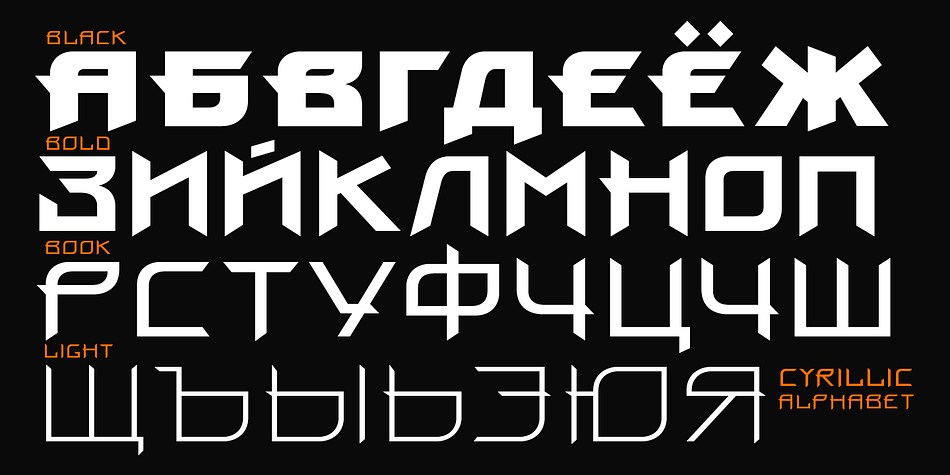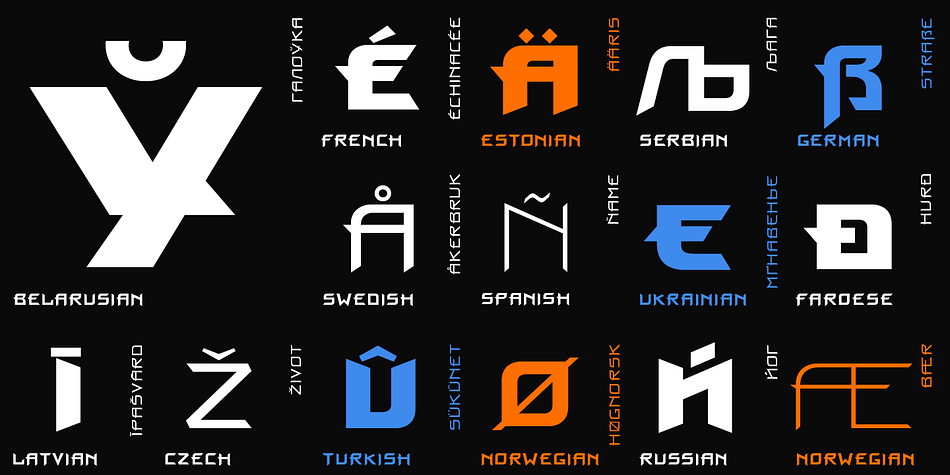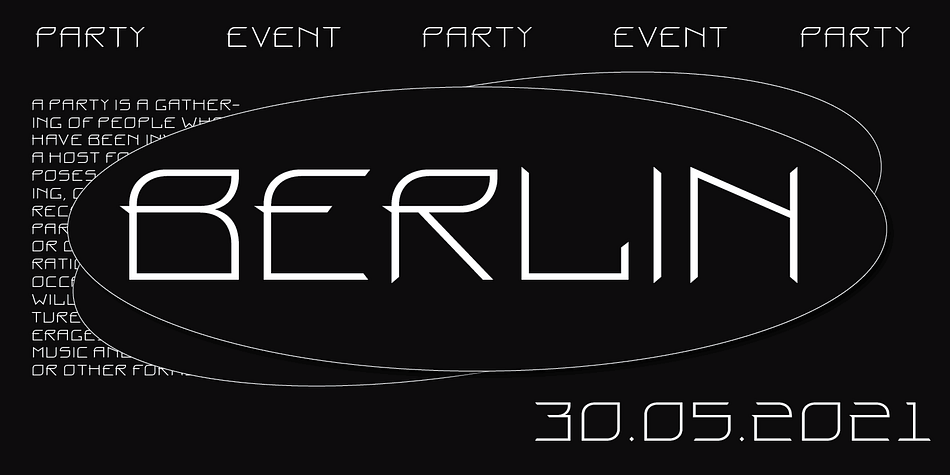
Designed by Tagir Safayev, Proun is a display sans font family. This typeface has four styles and was published by ParaType.
The typeface was designed at ParaType (ParaGraph) in 1993 by Tagir Safayev. Similar to Choose One/Ten typeface, by Bryan Thatcher. For use in advertising and display composition.